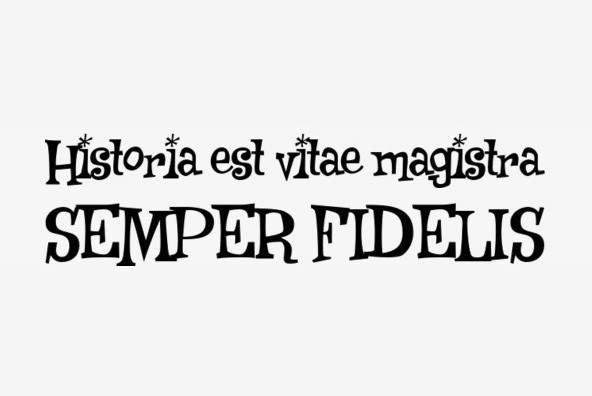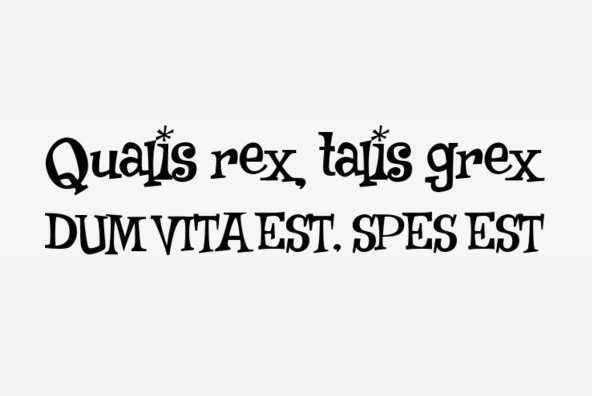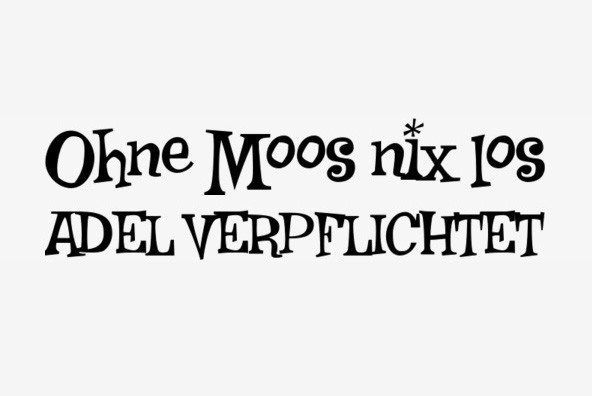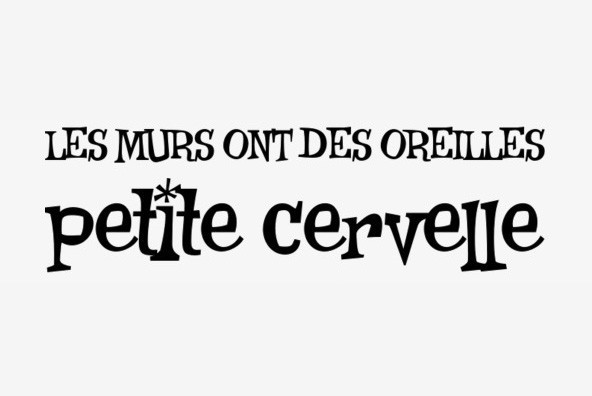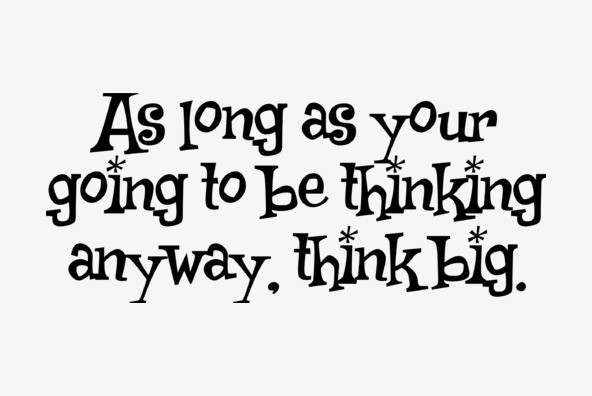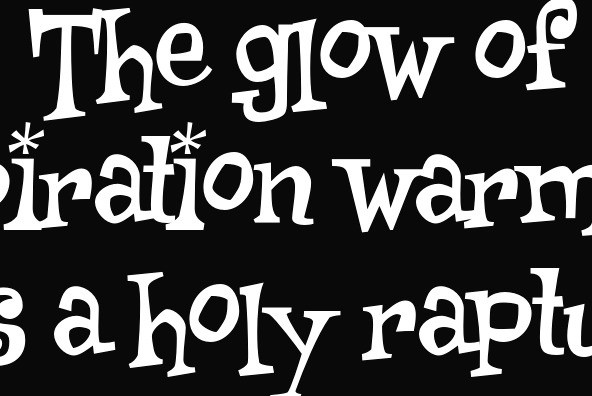
Weird Bill
Foundry: Sideshow
Weird Bill is Squid's tribute to his most prominent influence, Bill Campbell, model kit box illustrator extraordinaire and creator of the Weird-Ohs!. Bill's series of goofy monster model kits in the early 1960s was such a hit that it has been reissued twice! Weird Bill is fun, freaky, frantic and full of frenetic frappery! For more info on Bill Campbell check out www.bonediggers.com